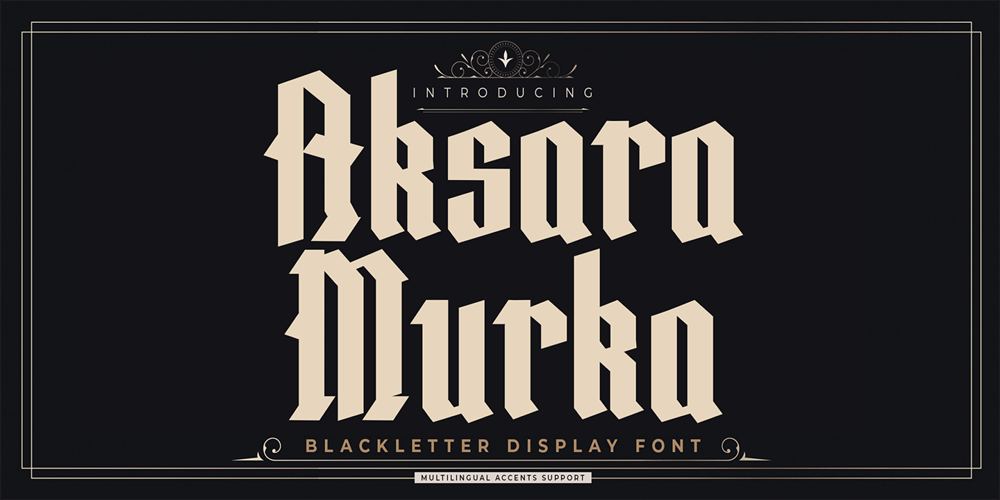
Aksara Murka Font Family was designed by Abdul Malik Wisnu, Anang Fibriyanto and published by Gassstype. Aksara Murka contains 1 styles and family package options. Hello Everyone, introduce our new product Font Aksara Murka This Is Blackletter Display Font.This is a Textured Natural Style and classy style with a clear style and dramatic movement.